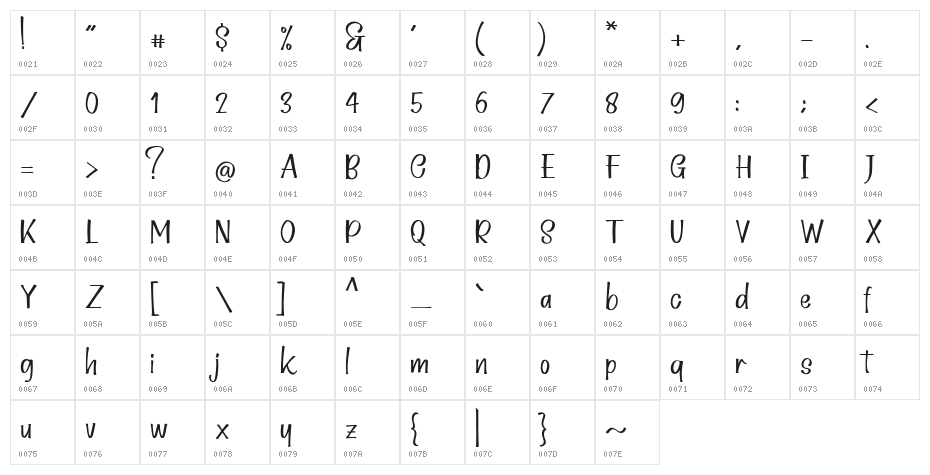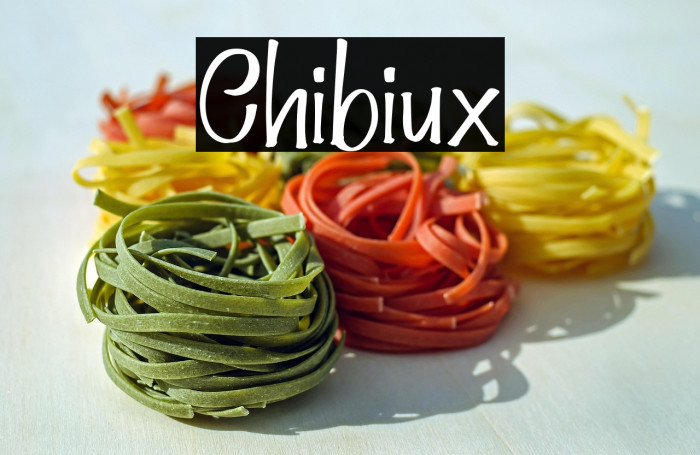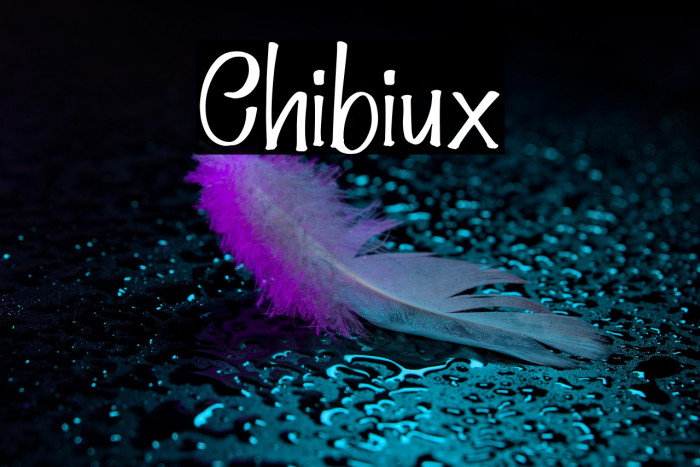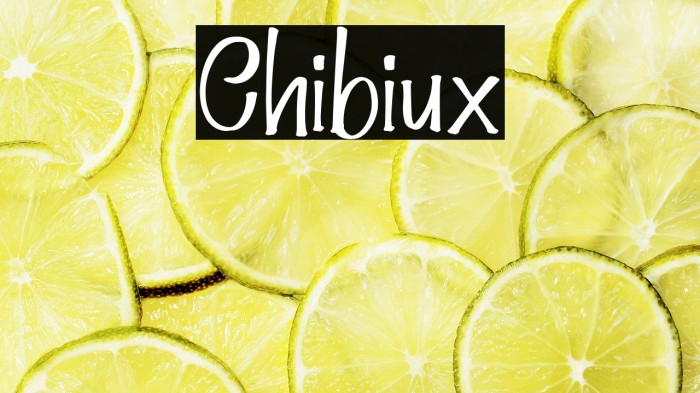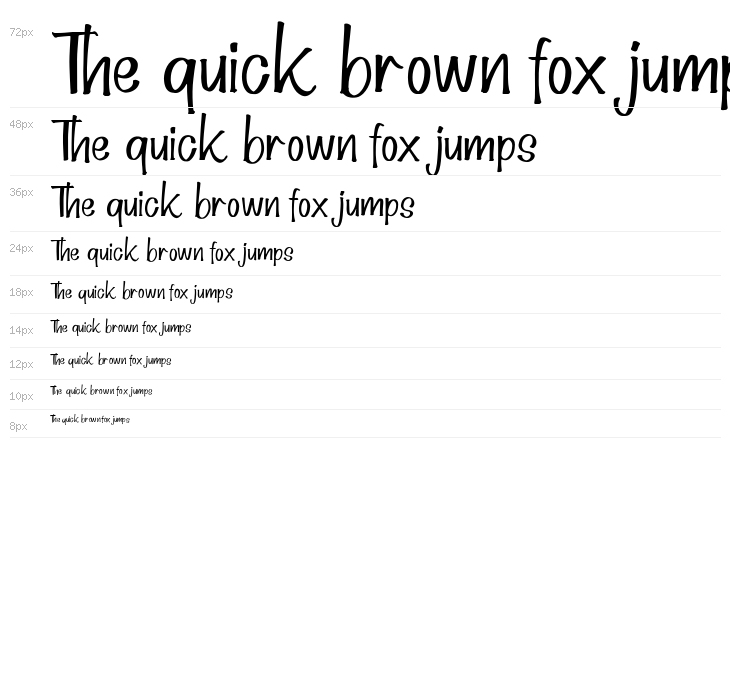
Chibiux Font
Chibiux Description
This playful and whimsical font features a handwritten style with a casual and friendly appearance. The letters are slightly irregular, giving it a personal touch that feels both approachable and unique. The strokes are moderately thick, providing good readability while maintaining a lively character. The uppercase letters are bold and prominent, while the lowercase letters have a charming, slightly slanted form. Numbers and special characters are consistent with the overall style, making this font versatile for various creative applications.
| Overall Style | Playful |
| Use Case | Headlines, Logos, Informal Text |
| Proposed Projects | Ideal for greeting cards, children's books, playful branding, and social media graphics. |